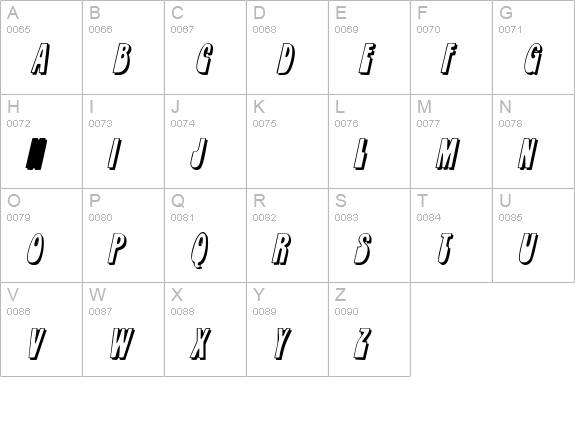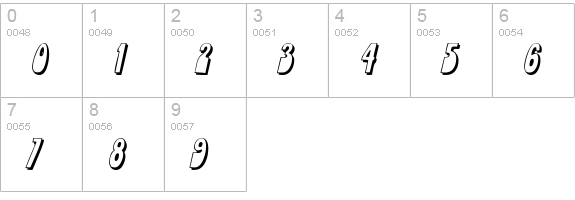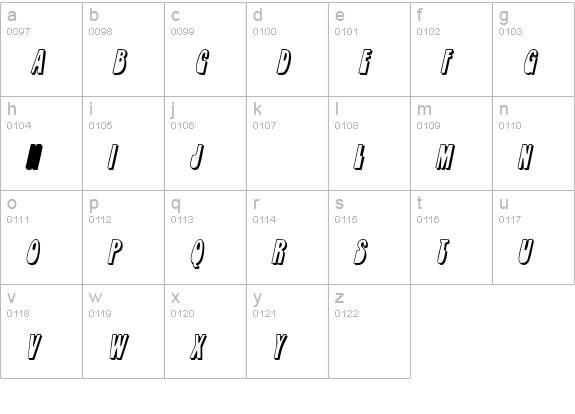
RobleSCapsSSK Italic Font Details
RobleSCapsSSK Italic is a distinctive, italic variant in the RobleSCapsSSK typeface family \xE2\x80\x94 well suited to design and typography projects.
RobleSCapsSSK Italic font exudes elegance and sophistication with its sleek design and sleek italic style. The slanted letters add a touch of flair to any design project, making it perfect for both headers and body text. The graceful curves and sharp angles of this font make it a versatile choice for a wide range of applications, from branding to editorial design. What sets RobleSCapsSSK Italic font apart is not only its stunning aesthetics but also its accessibility. This font is available for free download at FontsMarket.com, making it easy for designers and creatives to incorporate it into their projects without any cost. Whether you're working on a personal project or a client's design, RobleSCapsSSK Italic font is a great choice that combines style and affordability seamlessly. Elevate your designs with this exquisite font today!